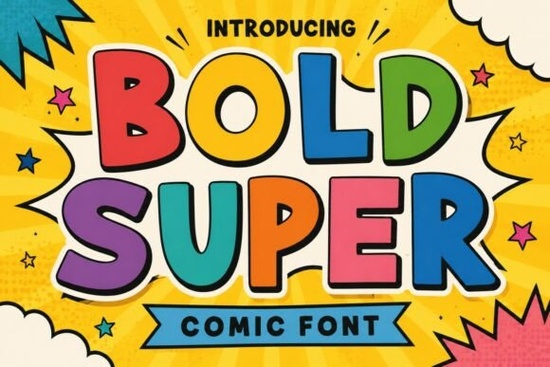
If you need a comic-style display font that brings real energy to your designs, Bold Super Font is worth a close look. It features thick, rounded letterforms and cartoon-inspired proportions that feel cheerful without looking cheap or overdone. Whether you're working on kids' products, social media graphics, or merchandise, this font gives your text a bold, friendly personality that works in both print and digital projects.
What Kind of Projects Does Bold Super Work Best For?
This font was designed as a display typeface, which means it shines in headlines, titles, and short text not long paragraphs. Here are some practical uses that pair well with its comic-inspired style:
- Children's products book covers, toy packaging, classroom posters, and activity sheets
- Digital content YouTube thumbnails, Instagram posts, and blog headers
- Events and invitations birthday party invites, flyer headings, and banners
- Merchandise t-shirt designs, sticker sheets, and tote bag prints
- Print-on-demand product titles, brand logos, and promotional graphics
The rounded shapes and playful proportions make it readable even at larger sizes on screens, which is helpful if you sell on platforms like Etsy or run a Shopify store.
Bold Super sits firmly in the fun, colorful, and energetic category it's the font you reach for when the project needs to feel exciting and approachable, not serious or mysterious.
Does Bold Super Pair Well With Other Fonts?
Yes, and that's one of its strengths. Because Bold Super is so distinctive as a display font, it works best as the headline or title font alongside a simpler body font. Clean sans-serifs like Montserrat, Poppins, or Open Sans keep the layout balanced without competing for attention.
Here are a few pairing ideas:
- Bold Super + Poppins great for kids' educational materials and classroom resources
- Bold Super + Open Sans works well for YouTube channel branding and thumbnails
- Bold Super + a handwritten font adds a personal touch to birthday invitations or greeting cards
You can also layer Bold Super with outlines, drop shadows, and color overlays to create eye-catching poster designs and logo concepts. The thick letterforms hold up well visually even with multiple effects applied.
Is It Easy to Use for Print-on-Demand?
Absolutely. If you sell print-on-demand products, you know that fonts need to look crisp at different sizes and on various materials. Bold Super's bold weight and rounded edges reproduce cleanly on everything from t-shirts to mugs to stickers. The cartoon energy reads well in product thumbnails, which matters when shoppers are scrolling through search results.
What About Color and Layout Tips?
Bold Super looks its best with bright, saturated color palettes think primary colors, candy pastels, or bold pop-art combinations. Black outlines around the letters help the text pop on busy backgrounds. For social media graphics, try pairing it with flat-color shapes or comic-style speech bubbles to reinforce the playful tone.
If you're designing a logo, keep the layout simple. One or two words in Bold Super, combined with a clean tagline underneath, usually looks more professional than cramming too much text into the display font.
Quick Checklist Before You Buy
- Test it at your target size display fonts can look very different at small vs. large scales
- Pair it with a simple body font avoid using two bold or decorative fonts together
- Try it with outlines and shadows the rounded shapes respond well to layered effects
- Check color contrast ensure readability on both light and dark backgrounds